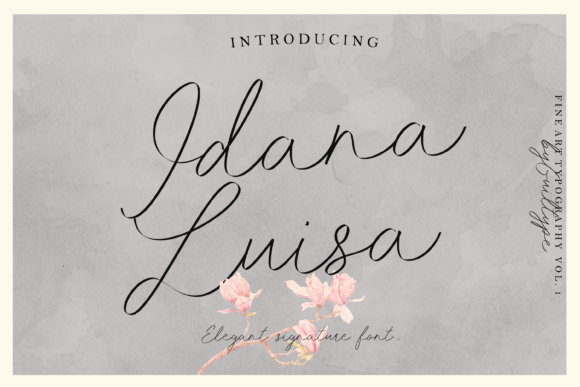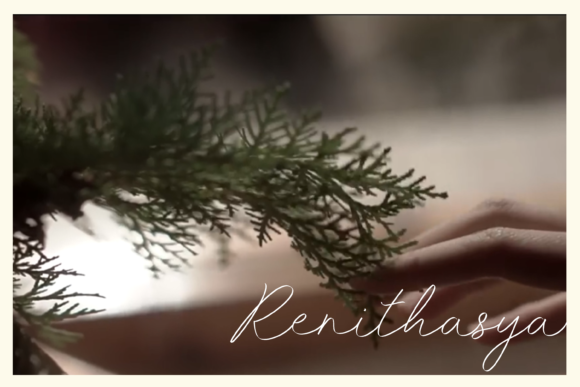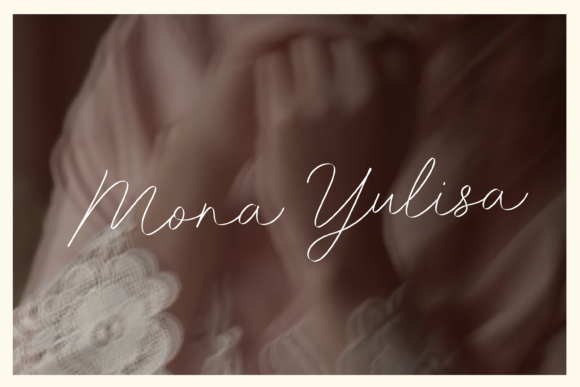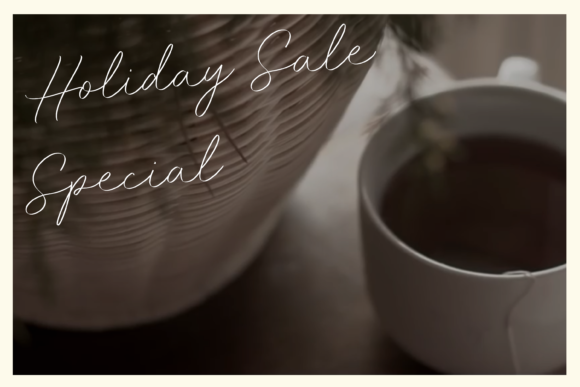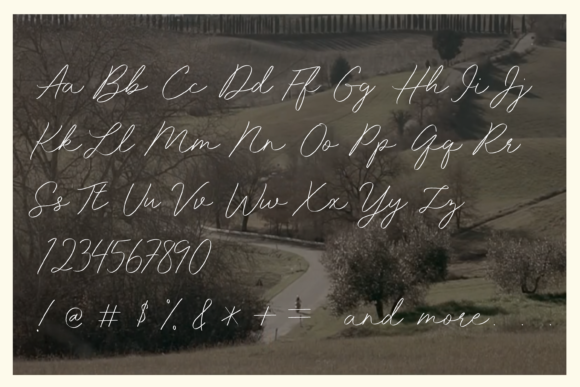
Idana Luisa Font
About Idana Luisa Font
Idana Luisa is a classy, modern, handwritten font. Every single letter has been carefully crafted to make your text look beautiful. Idana Luisa is great for every design that needs a feminine feel.